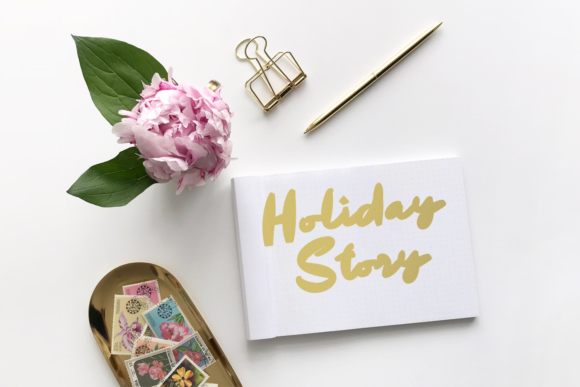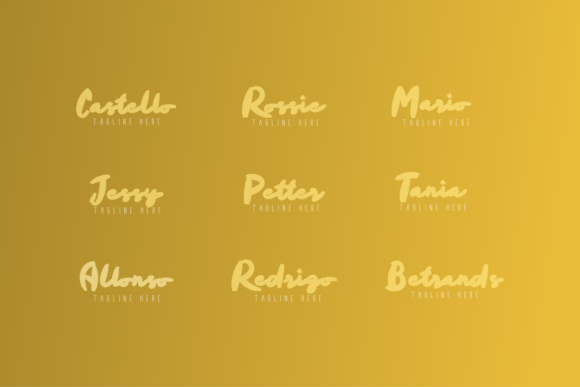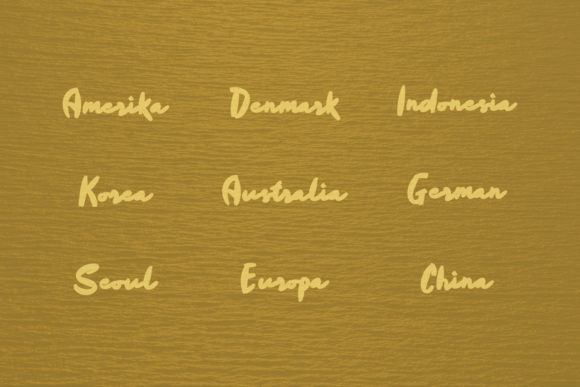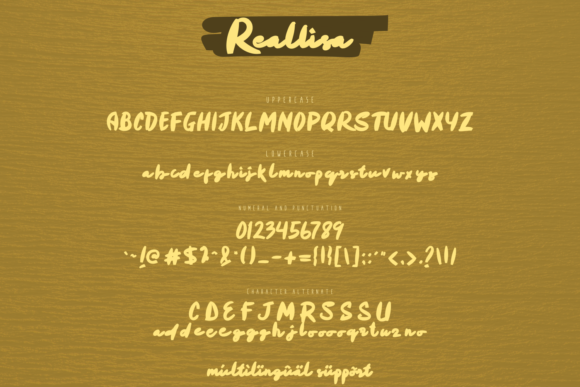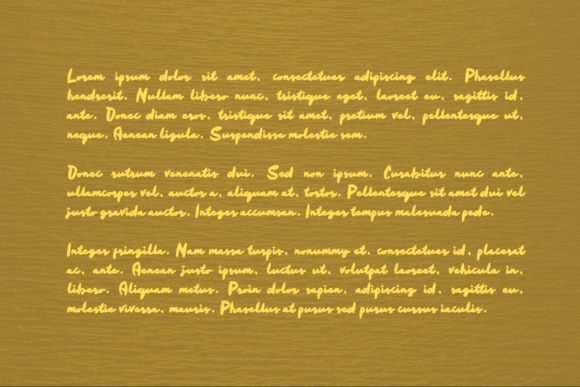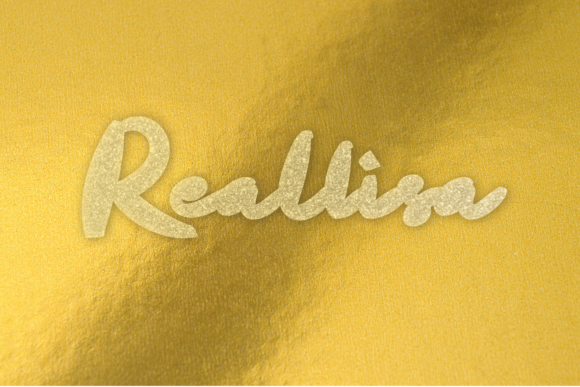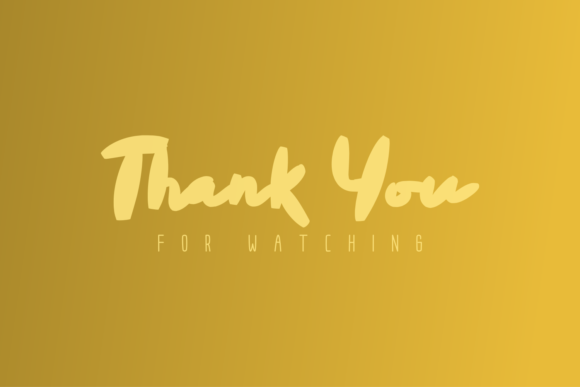
Reallisa Font
About Reallisa Font
Reallisa is a cool handwritten font. It will add an attractive and extraordinary look to your designs. Use it for logos, branding, packaging, social media posts and more!